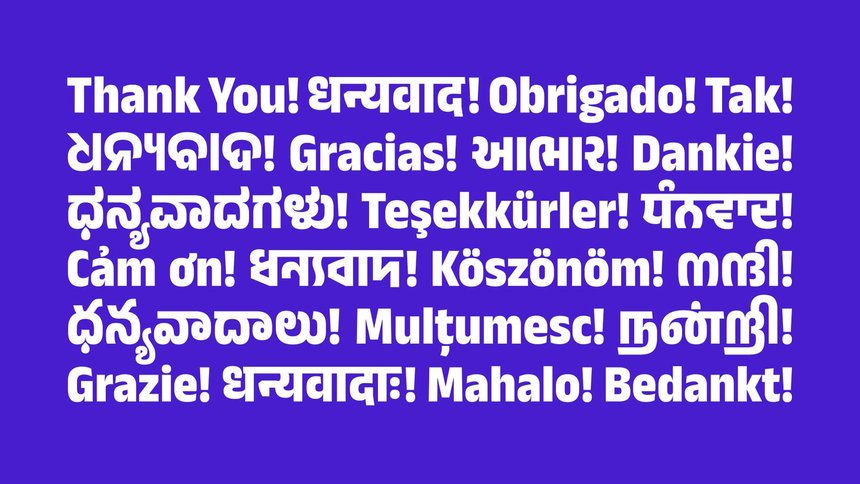
Anek brights together multiple scripts designed in multiple weights and widths by multiple designers. Designed primarily for large sizes and short texts, the confident and contemporary type family is characterised by distinct visual features, robust structures and rhythmic textures. The design of each script borrows from its own typographic culture and reflects the perspectives of the designers, making for a refreshing, versatile interpretation of India's lettering traditions.
GoogleClient
Aadarsh RajanType Designer -
Girish DalviType Engineer -
Kailash MalviyaType Designer -
Mahesh SahuType Designer -
Maithili ShingreType Designer -
Mrunmayee GhaisasType Designer -
Noopur DatyeType Designer -
Omkar BhoirType Designer -
Sarang KulkarniType Designer -
Sulekha RajkumarType Designer -
Vaishnavi MurthyType Designer -
Yesha GosharType Designer -